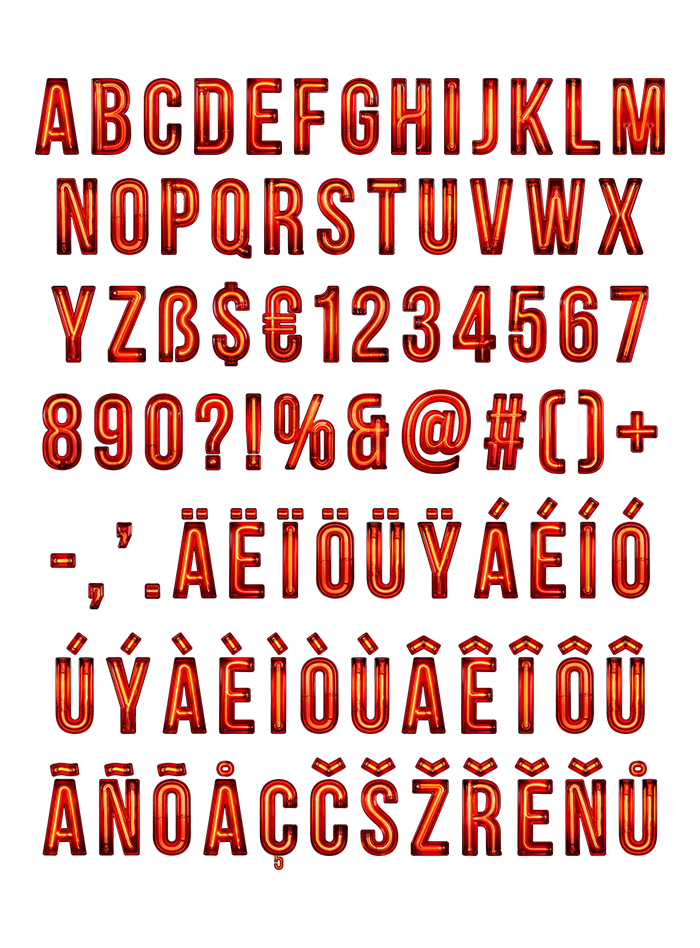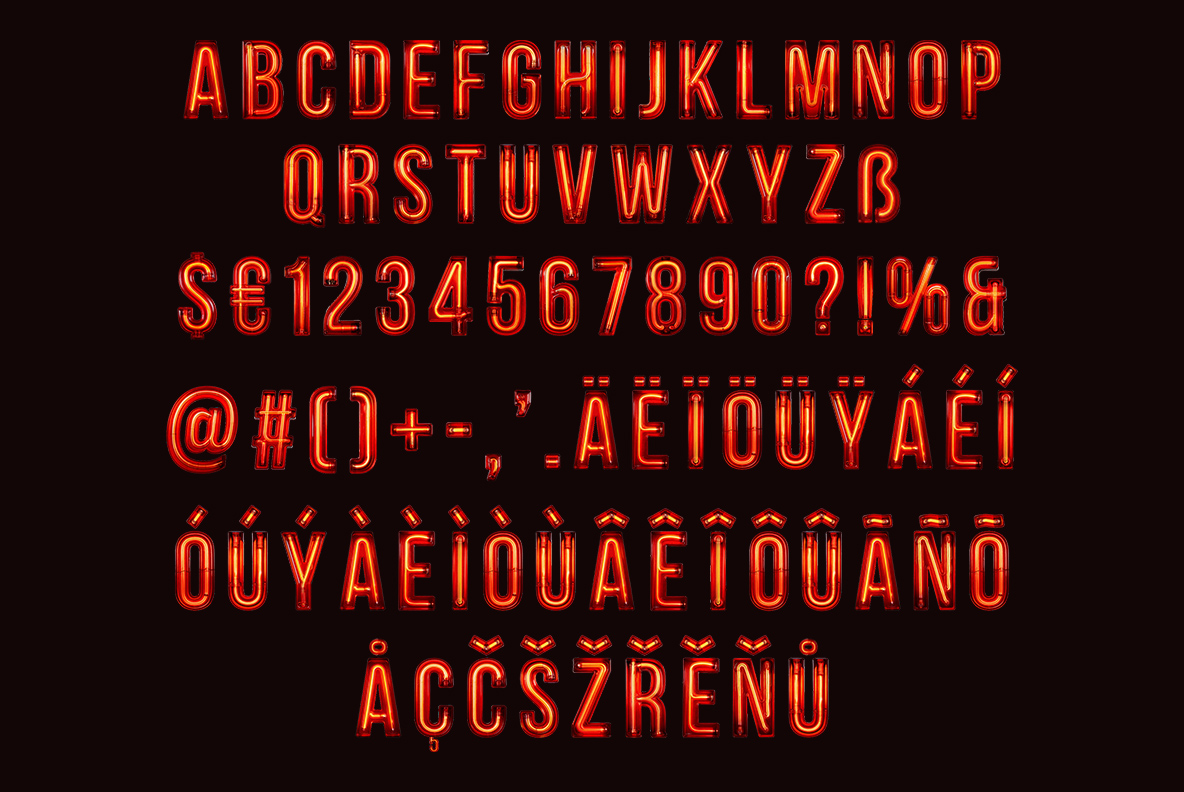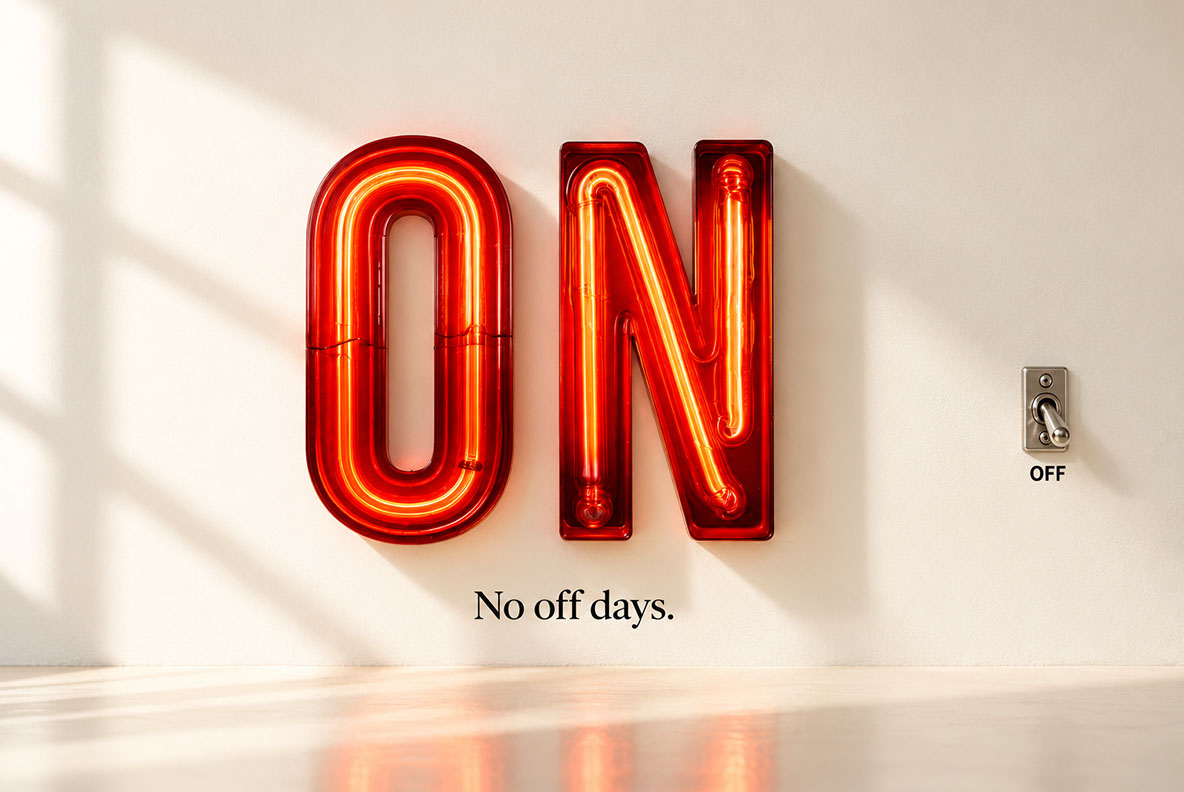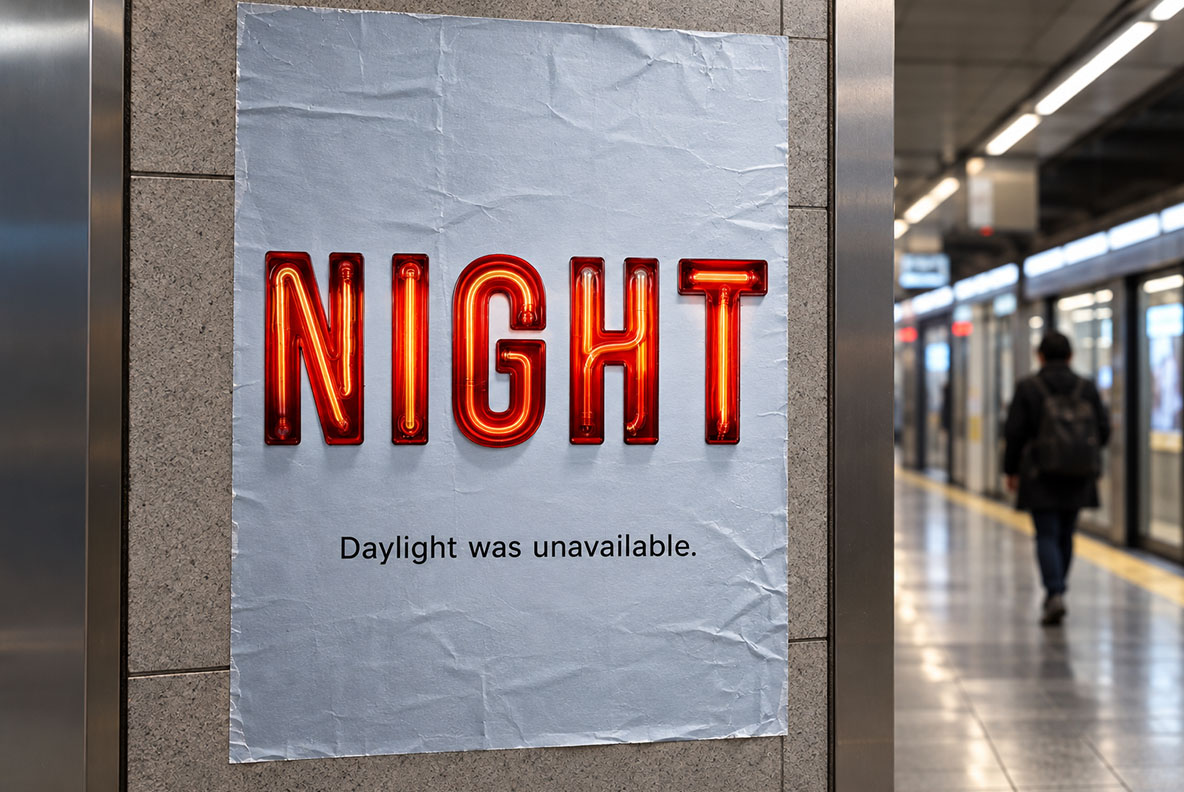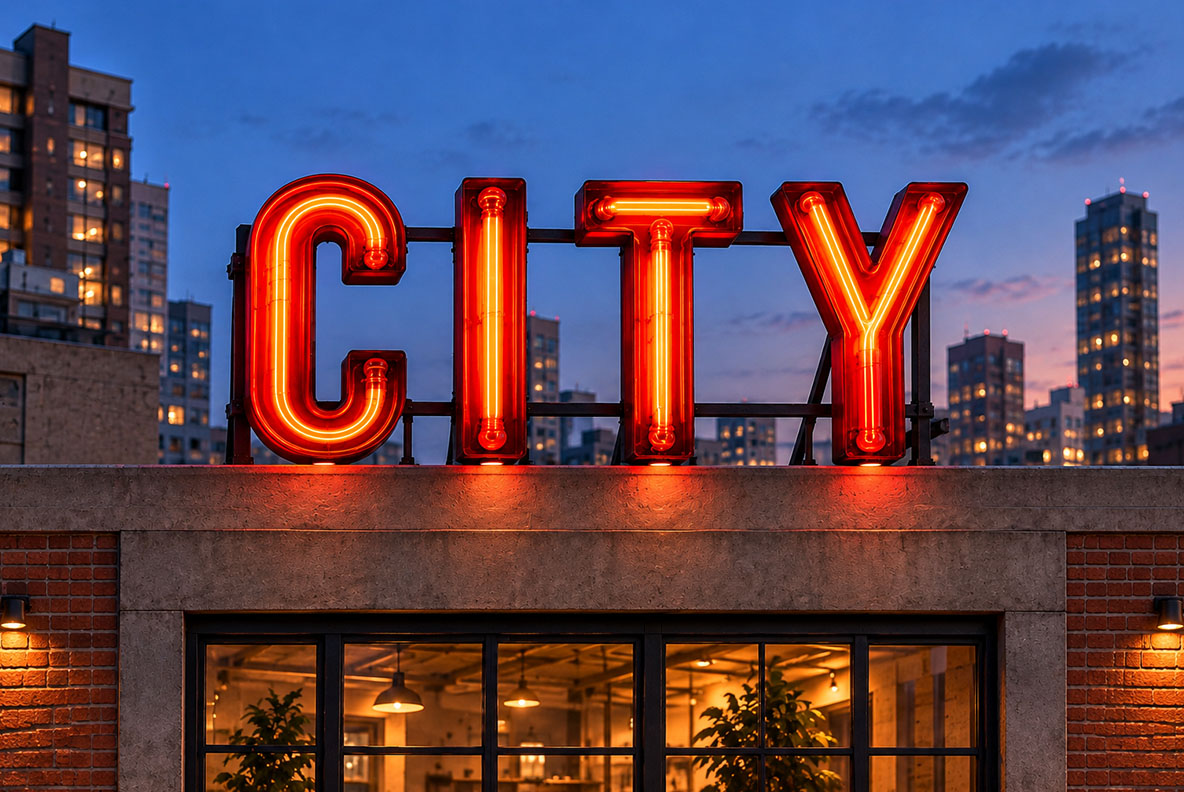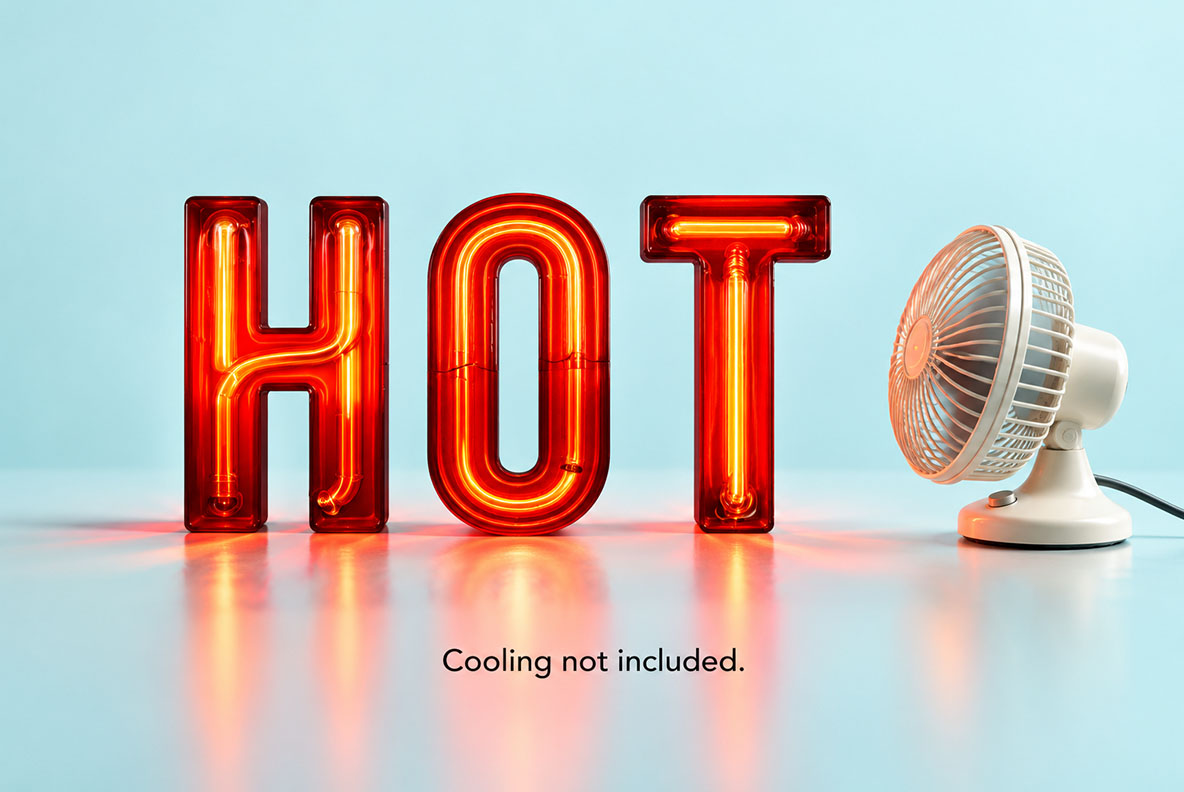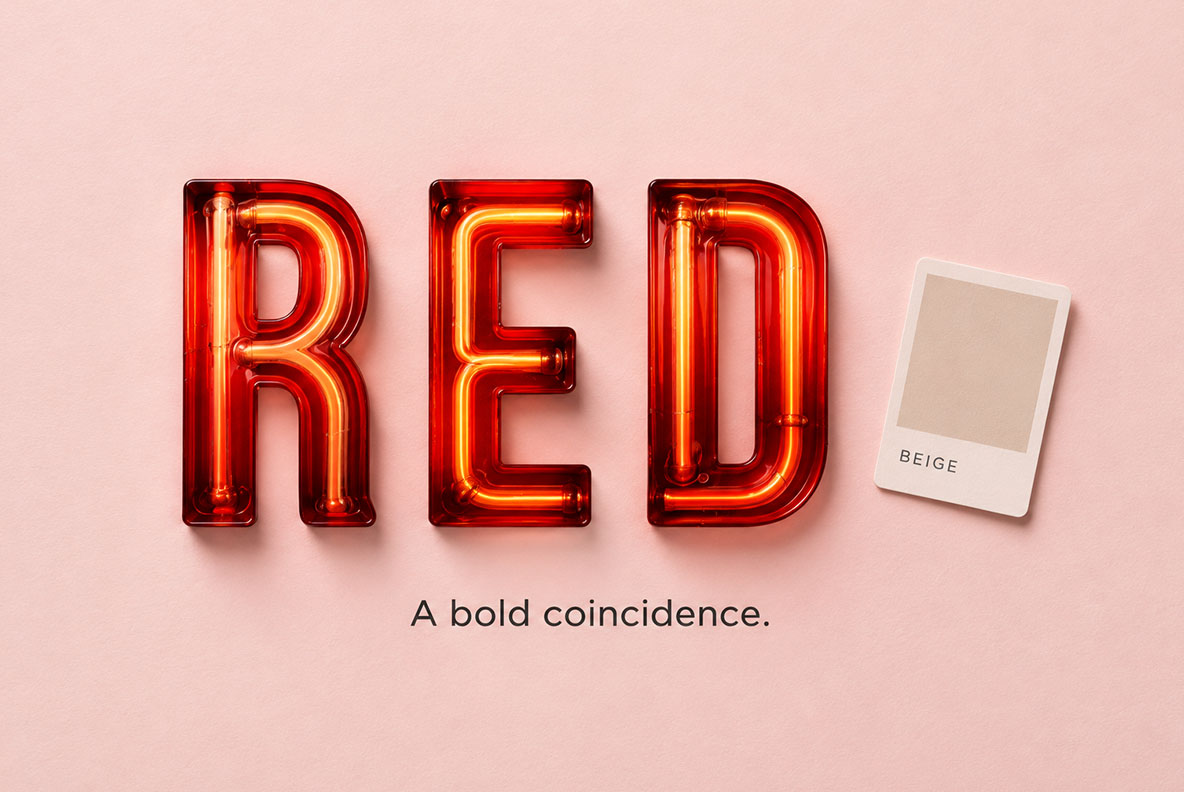
Urban Neon Font. Red Glass Tubes With a Glowing Core
Urban Neon Font turns every letter into a tall red glass tube with a second line of light glowing inside it. Soft curved corners, a warm orange core and a gentle haze make words look switched on. Type it as an OTF font or arrange the PNG letters for bar signs, record sleeves and night posters.
Urban Neon Font, Glass Tubes Lit From Inside
In the Urban Neon Font, each stroke is simply a red glass tube bent into a tall capital. Inside each tube runs a second, thinner line of light, so the letters glow from the core outward. The corners also curve softly, just as real tubing does when a sign maker heats and bends it.
Because the shapes stay condensed, whole words fit on one line without crowding. Even so, they never look thin, since the glass adds body around every stroke.
Why the Red Reads So Warm
First, the colour shifts from deep cherry at the edges to hot orange along the glowing core. Then a soft haze spills onto whatever sits behind, while tiny reflections pick out the curves of the glass. As a result, the letters look switched on rather than printed.
For that reason, dark brick and black walls make the Urban Neon Font pop hardest. Still, pale pink or plaster works nicely too, because the red keeps its punch in daylight.
Animated preview of the Urban Neon Font lighting up letter by letter on black
Where the Urban Neon Font Switches On
Bars, record sleeves and late-night club flyers are the natural fit, of course. Our mockups also hang CITY on a rooftop at dusk and print DJ across a pair of white tees. Meanwhile, a subway poster reading NIGHT shows how well it handles a single bold word.
Besides the alphabet, the set carries figures, currency signs, %, @ and &. It also covers accented capitals for most European languages. So a French menu or a Czech gig poster needs no workaround.
FONT spelled in the Urban Neon Font on a dark red cover with OTF and PNG notes
Urban Neon Font character set with numbers and symbols glowing on a black background
NEON in the Urban Neon Font framed on a brick wall above a stone post
A three-line night slogan set in the Urban Neon Font glowing on a black brick wall
Glowing ampersand from the Urban Neon Font on a dark sheet over a concrete step
SHOW in the Urban Neon Font on a yellow screen with a silhouetted visitor
Letters D and J from the Urban Neon Font printed on two white t-shirts
NIGHT SONGS in the Urban Neon Font on a black record sleeve beside a vinyl disc
ON in the Urban Neon Font on a sunny white wall next to a light switch
Percent and at signs from the Urban Neon Font glowing on black
NIGHT in the Urban Neon Font on a paper poster in a subway station
CITY in the Urban Neon Font as a rooftop sign against a dusk skyline
HOT in the Urban Neon Font on a pale blue surface beside a small desk fan
RED in the Urban Neon Font on a pink wall with a beige colour swatch
Transparent PNG letters ABCD and figures 1234 from the Urban Neon Font